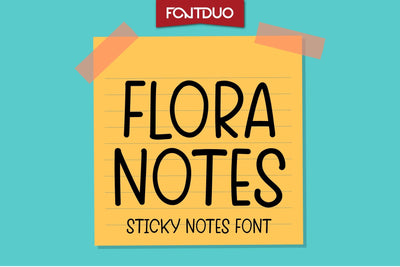
Flora Sticky Notes Font
Flora Notes FD is a cute and fun handwritten font. No matter the topic, this font will be an incredible asset to your fonts’ library, as it has the potential to elevate any creation.